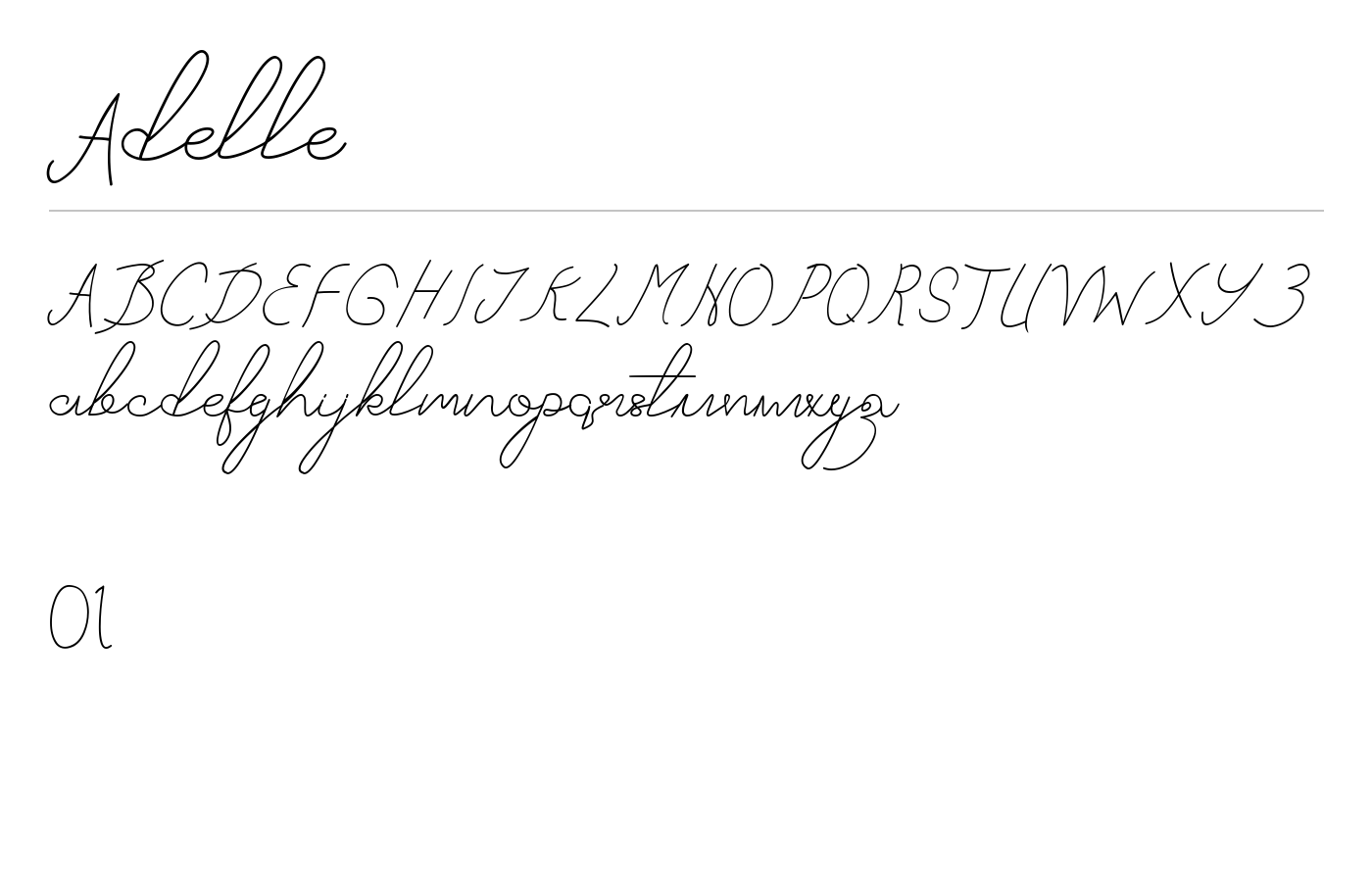
Adelle is a delicate script font characterized by its elegant and flowing handwritten style, featuring thin, graceful strokes and a refined, airy appearance. Its slender letterforms and subtle variations in stroke width make it ideal for sophisticated branding, invitations, and feminine design projects where a personal, stylish touch is desired. This font works beautifully in contexts that call for elegance and warmth, lending a charming and approachable feel to any visual composition.
Adelle Font
About Adelle Font